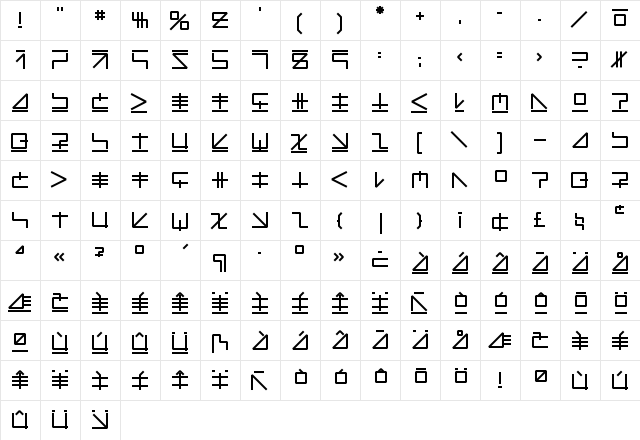
LinearKonstrukt Regular
Design Context for LinearKonstrukt Typeface
LinearKonstrukt is a composed and adaptable typeface that performs quietly and consistently across a wide range of design contexts.